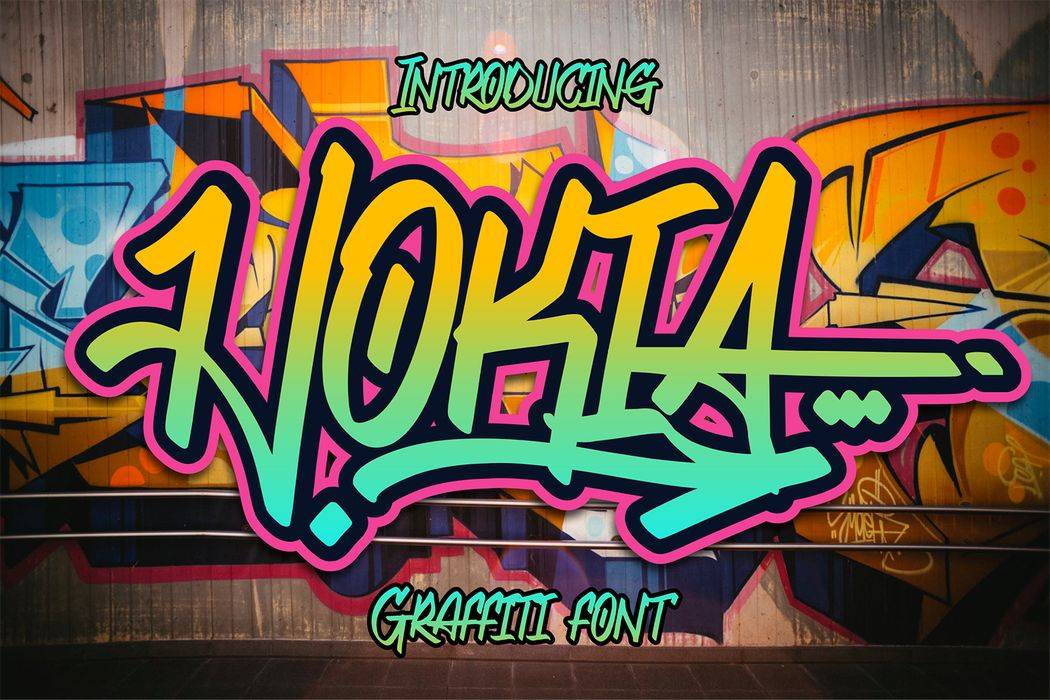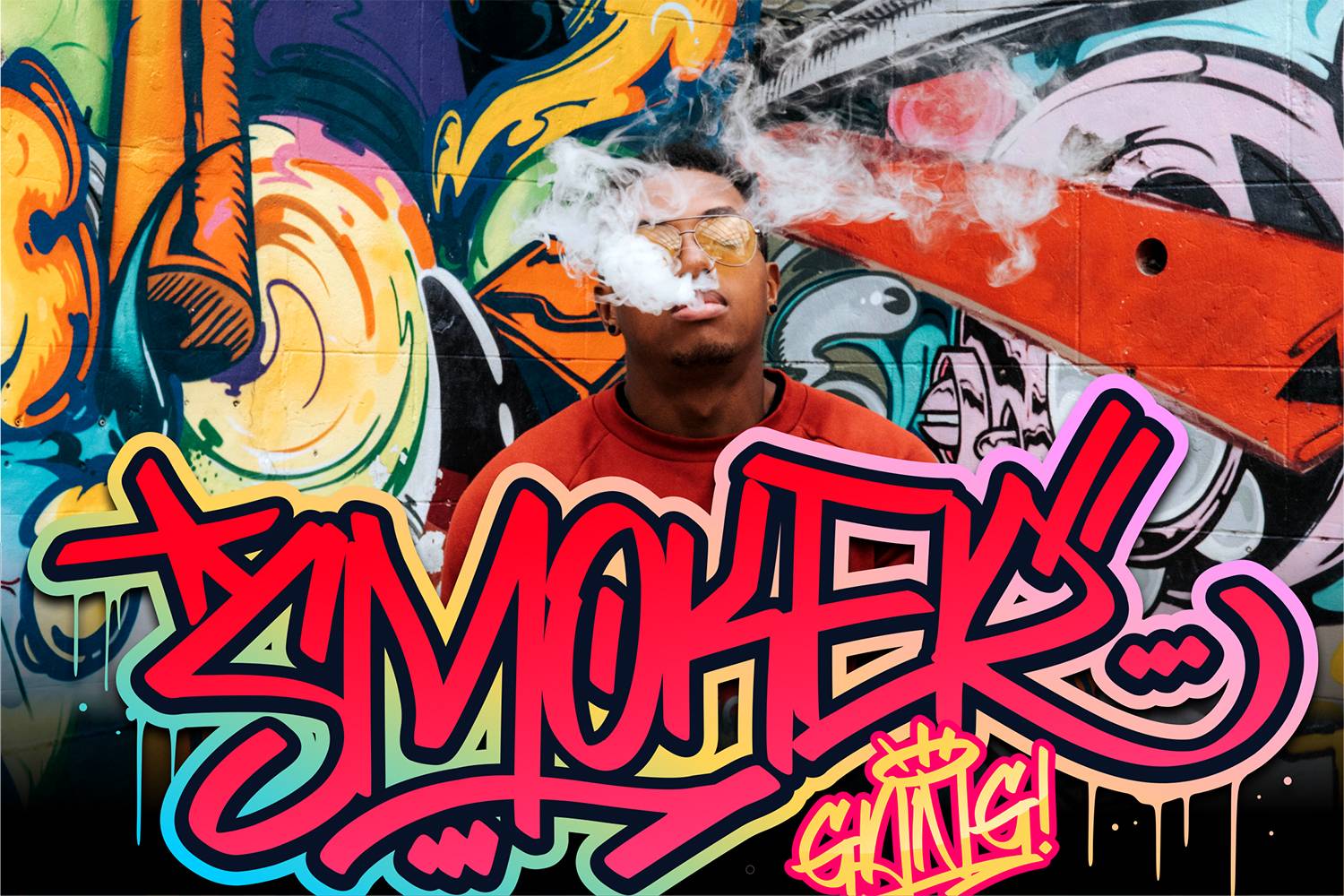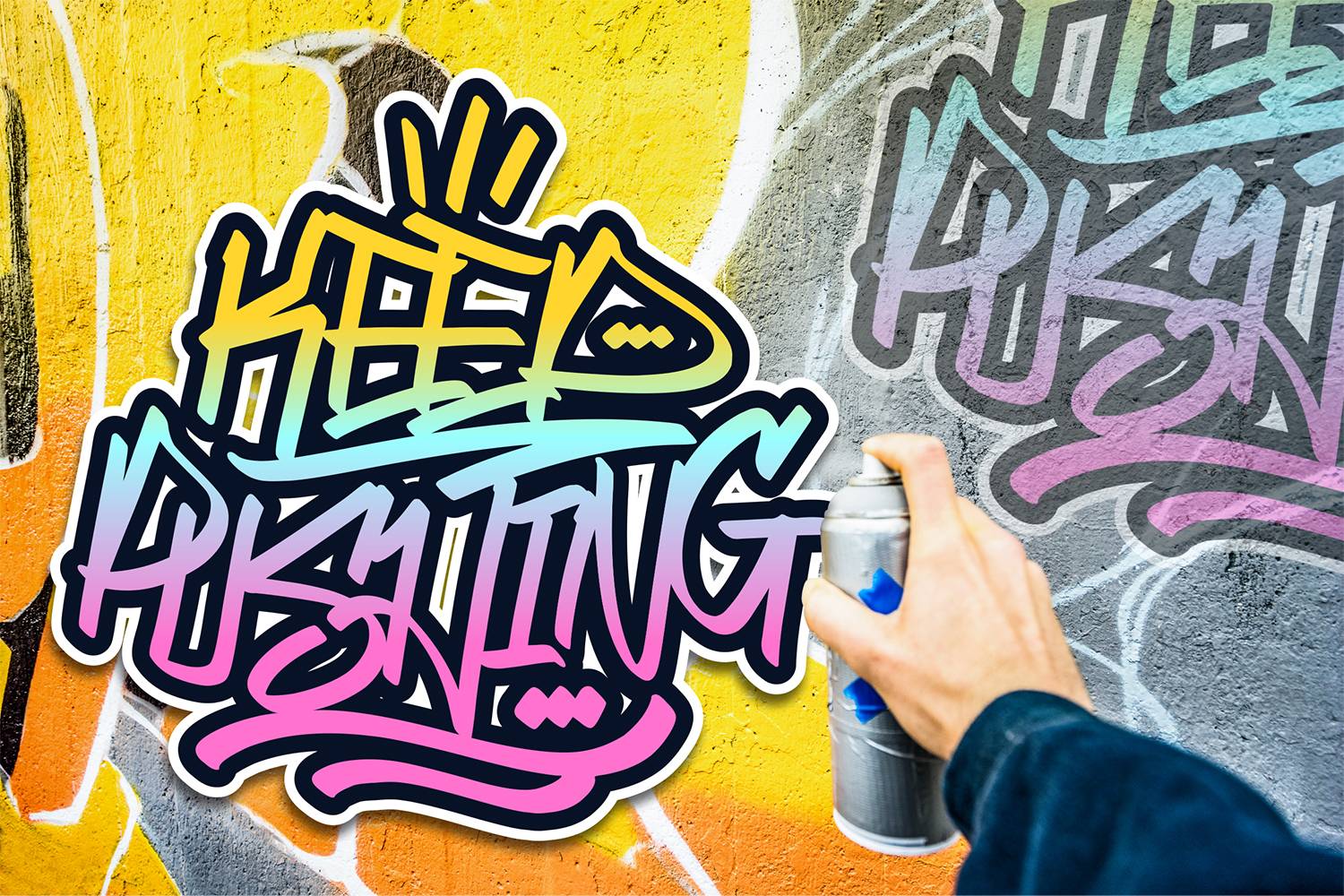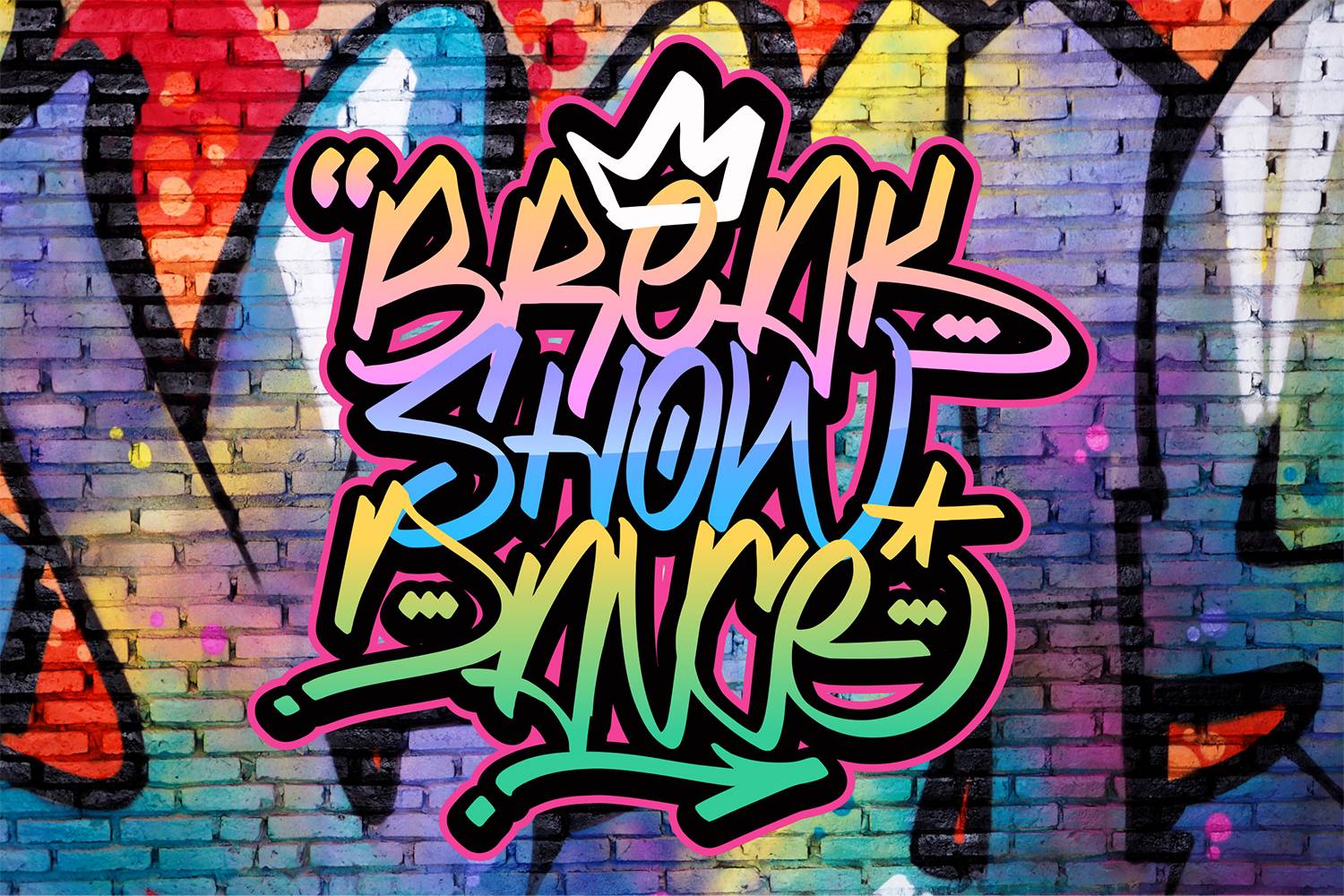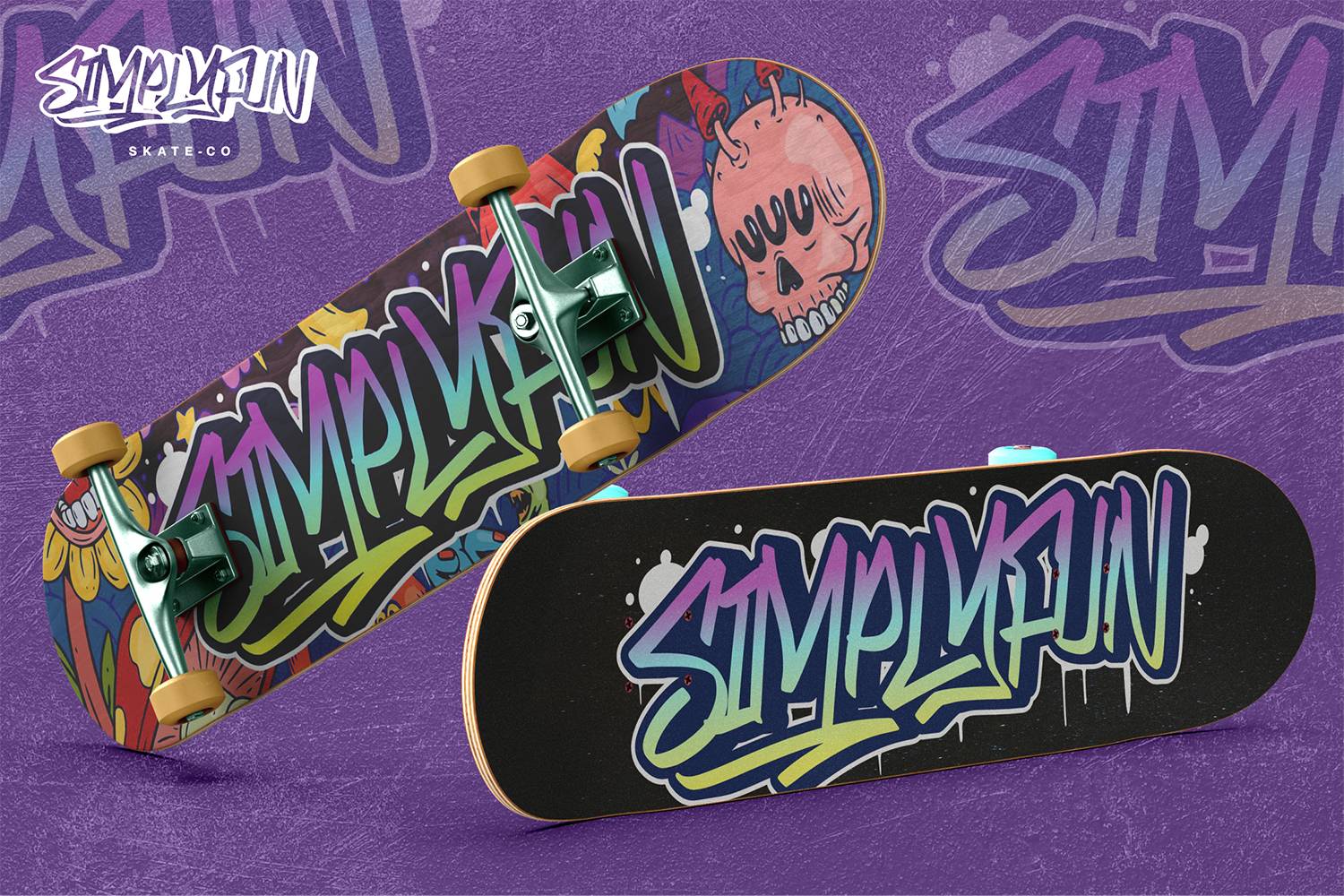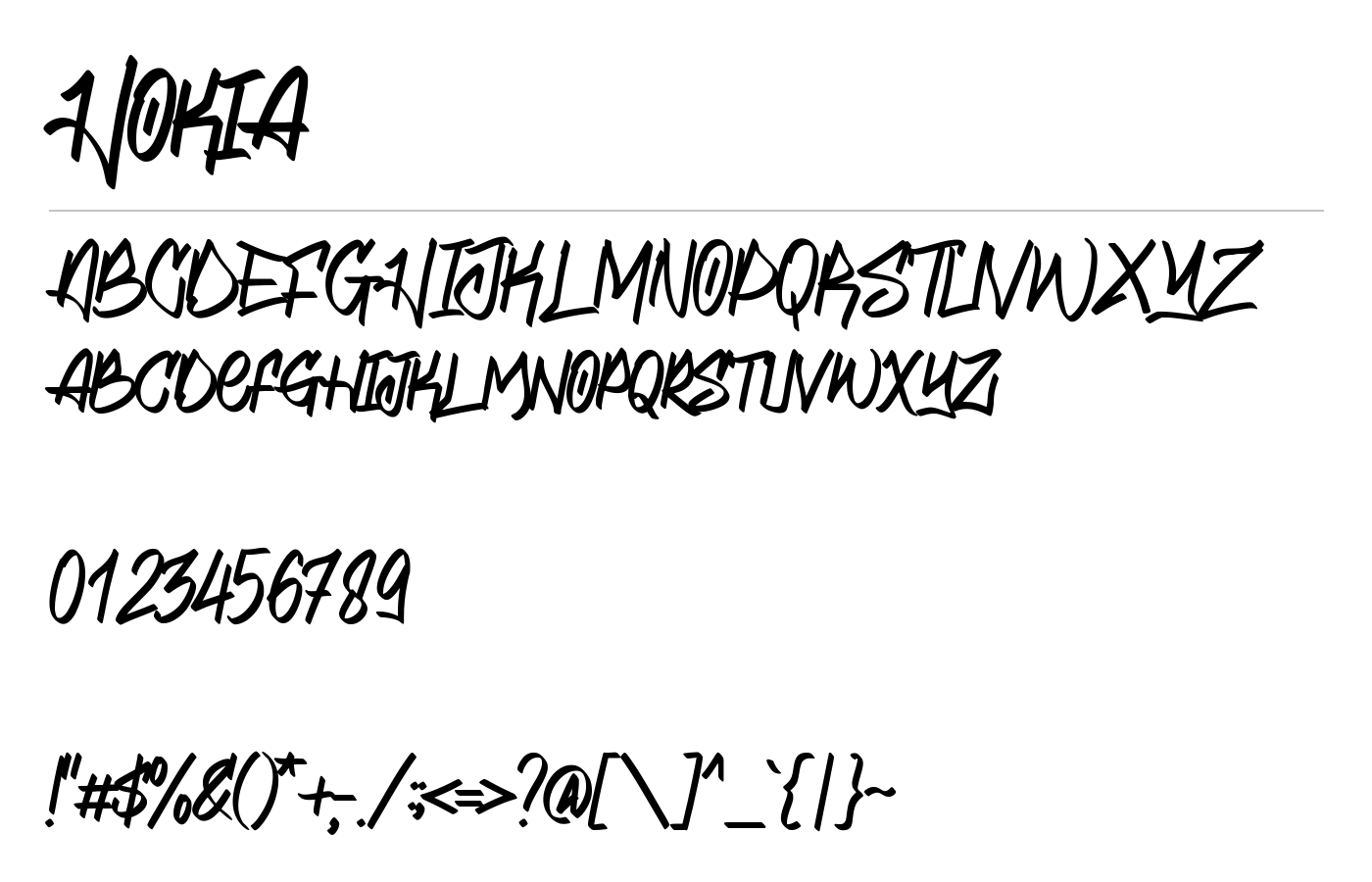
Hokia is an energetic, hand-drawn script font that mimics vibrant graffiti or urban street art. Its bold, slightly irregular strokes and dynamic letterforms give it a youthful, edgy personality, making it perfect for creative projects that want to convey a sense of rebellion, movement, or casual authenticity. It works well in logos, posters, or branding that seeks a distinct and expressive style.
Hokia Font
About Hokia Font